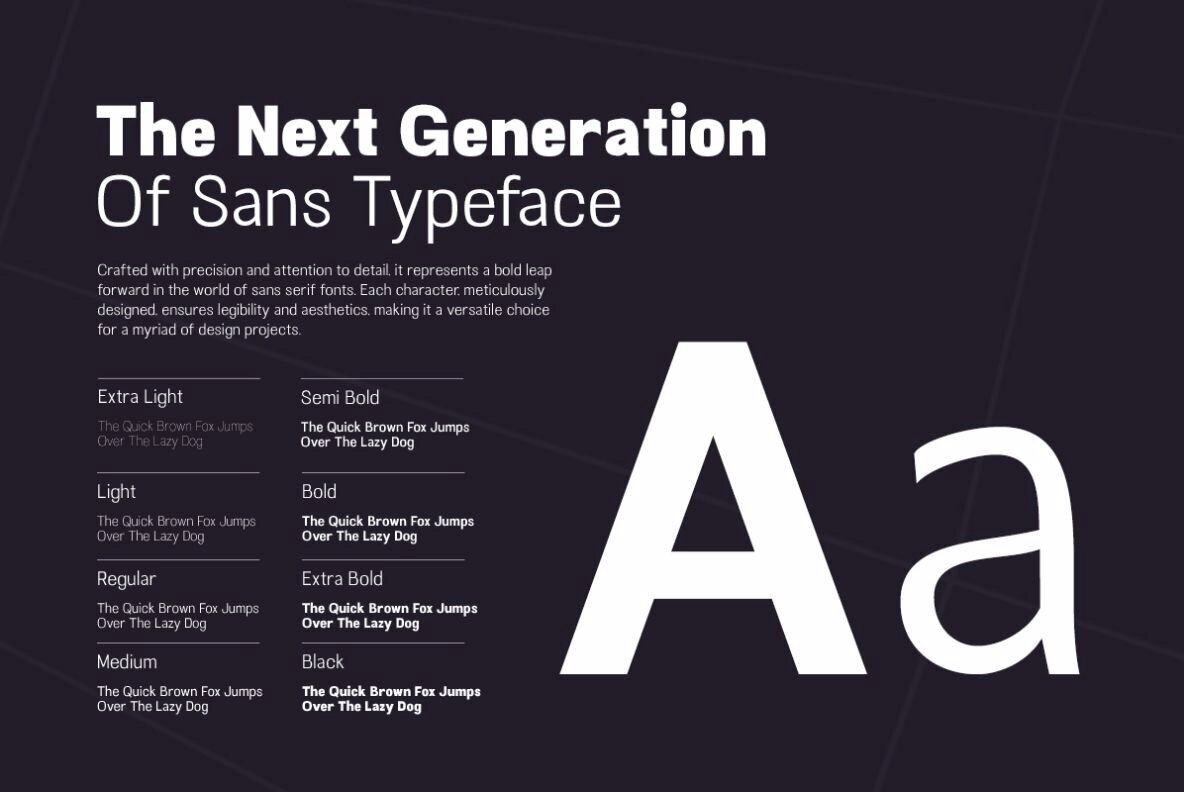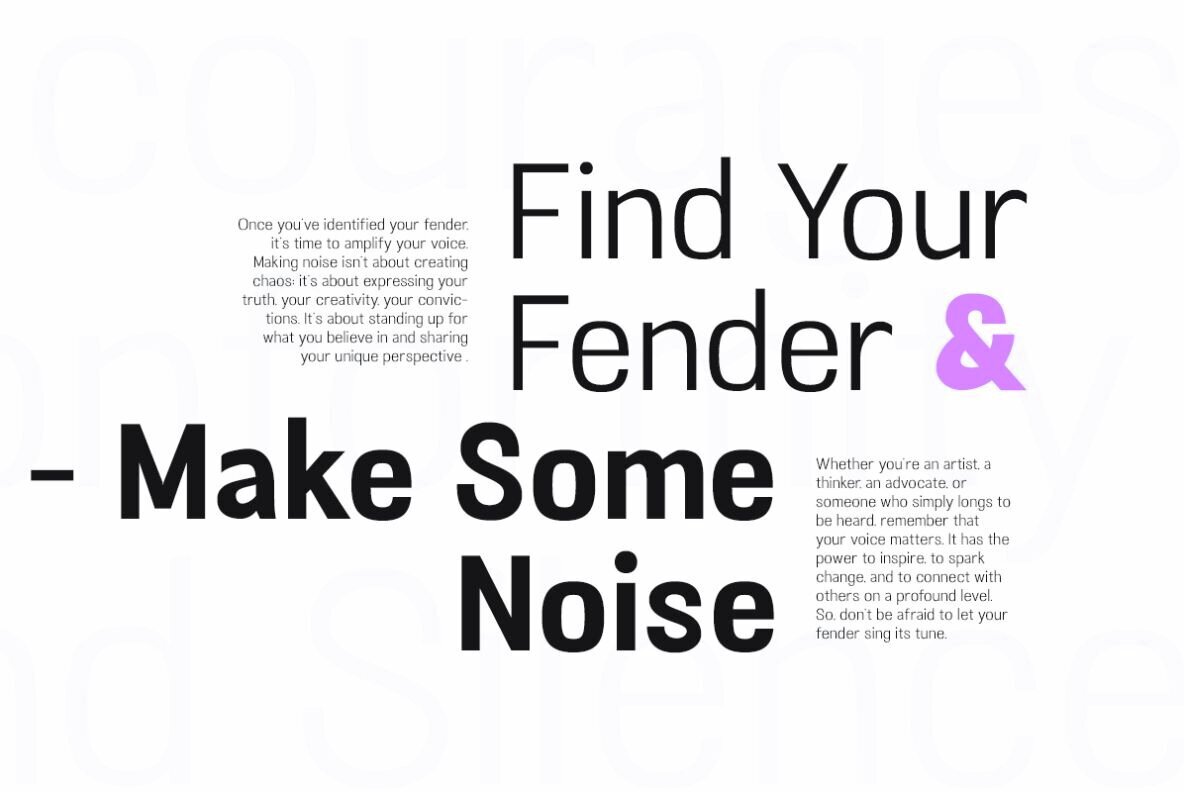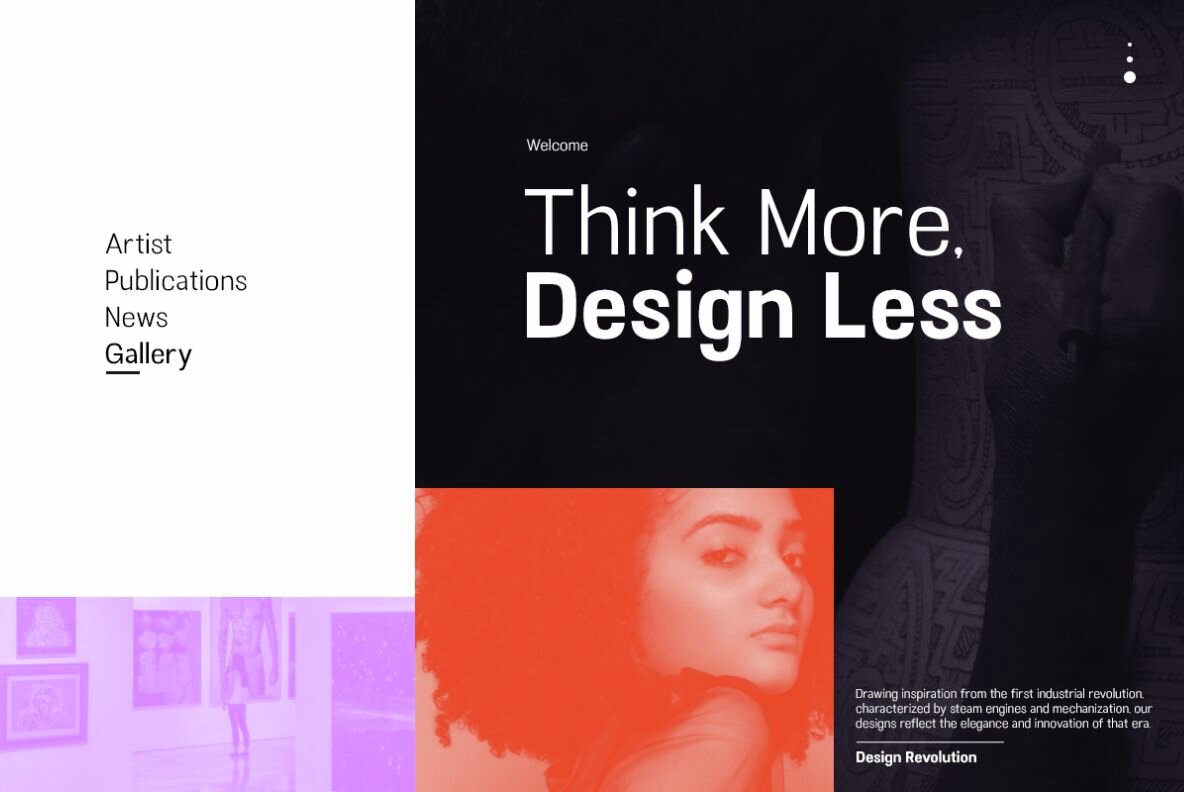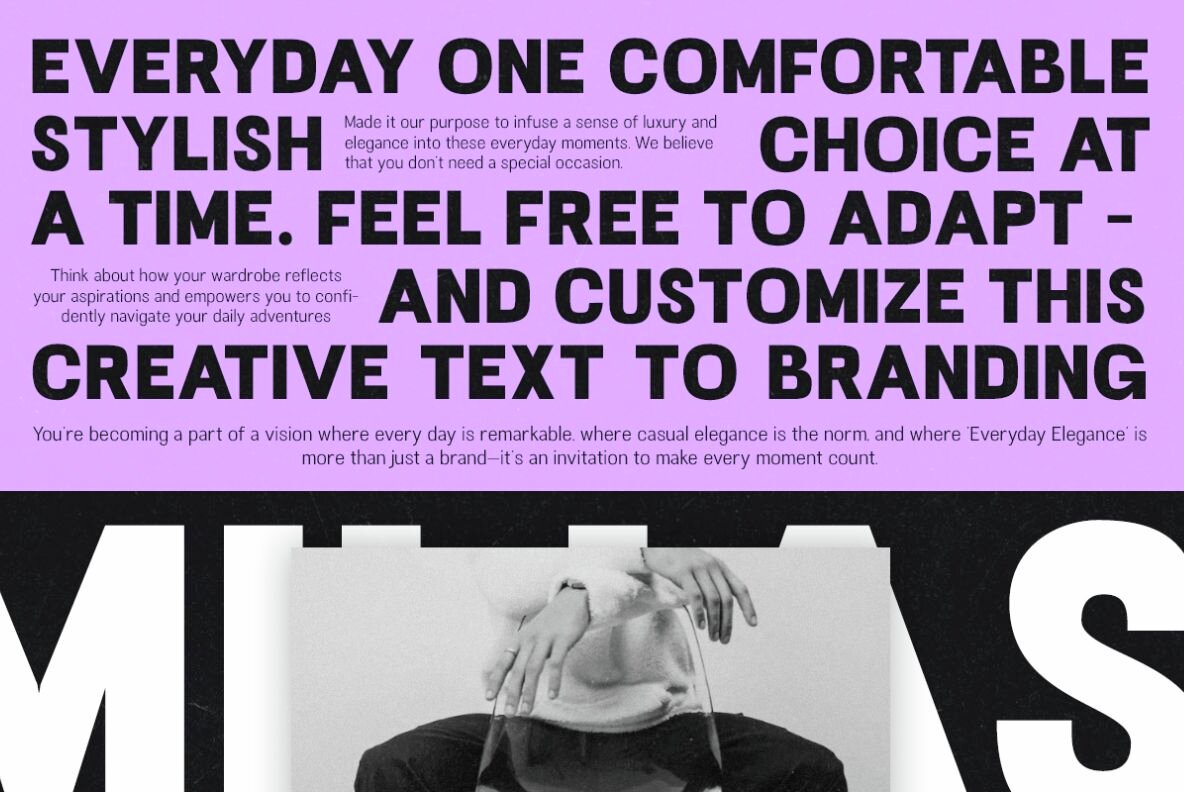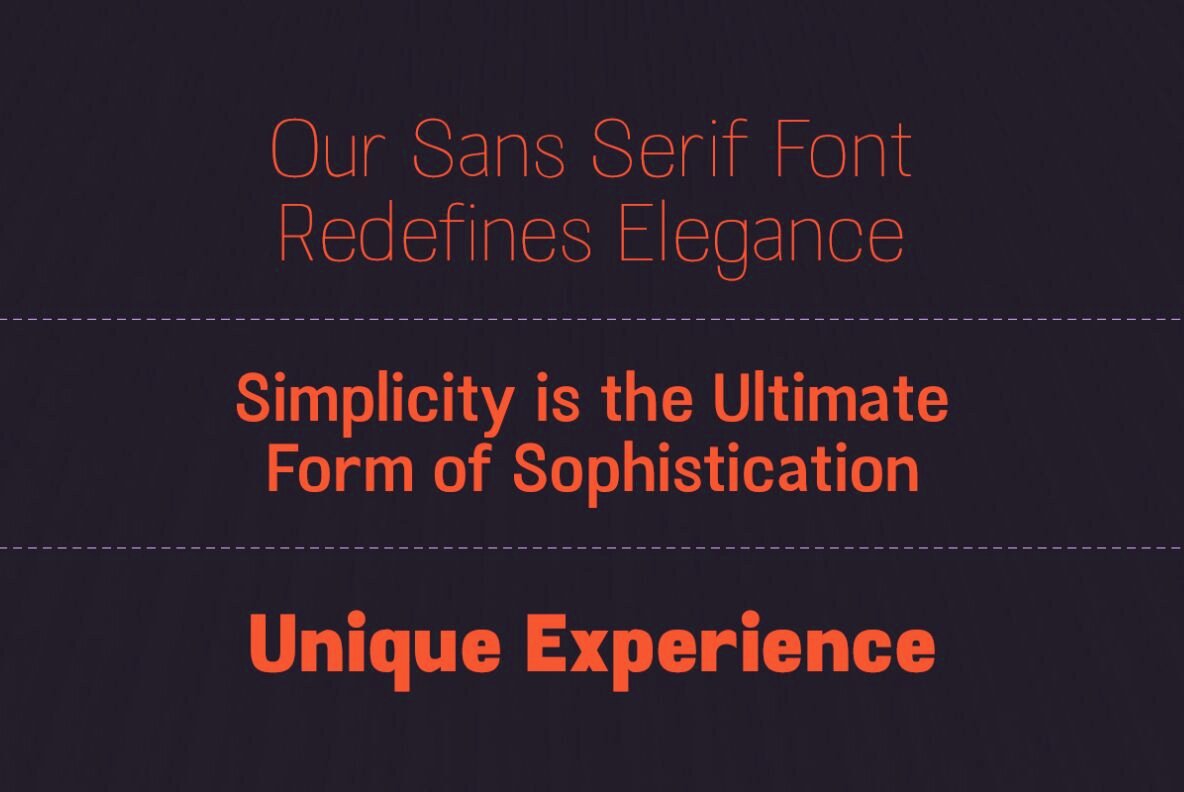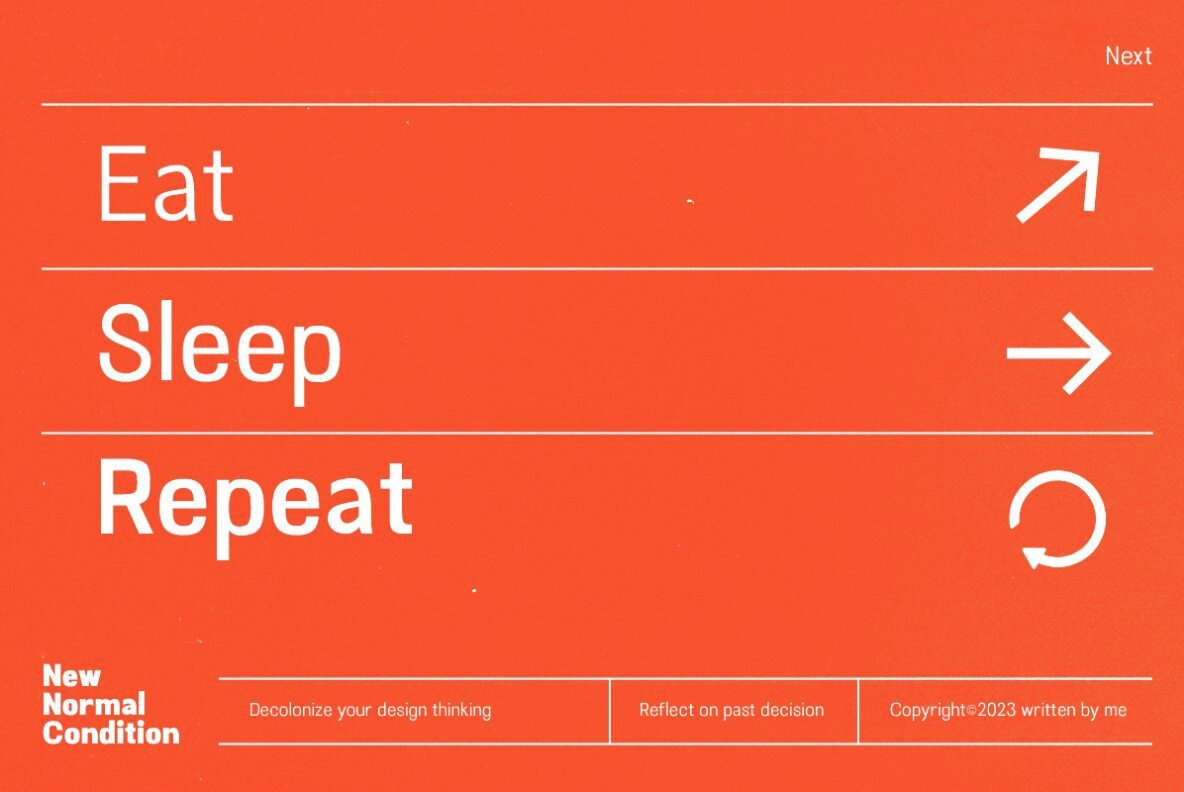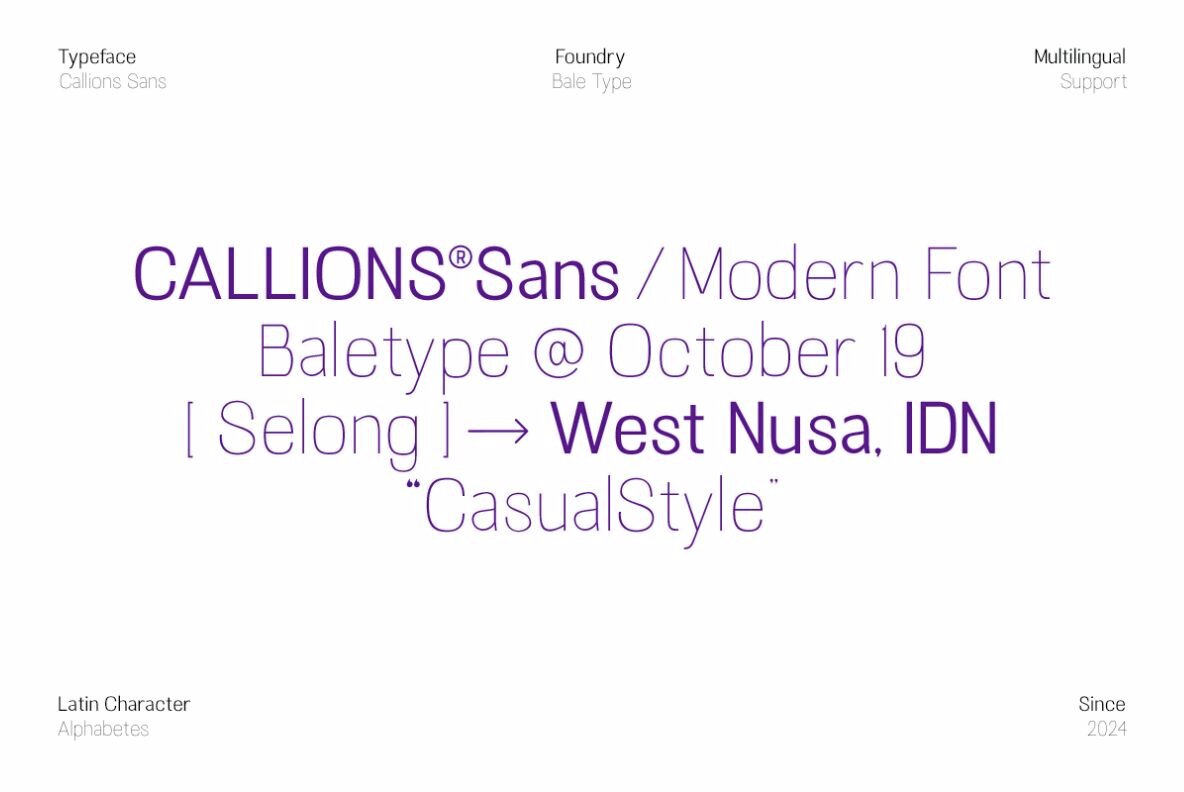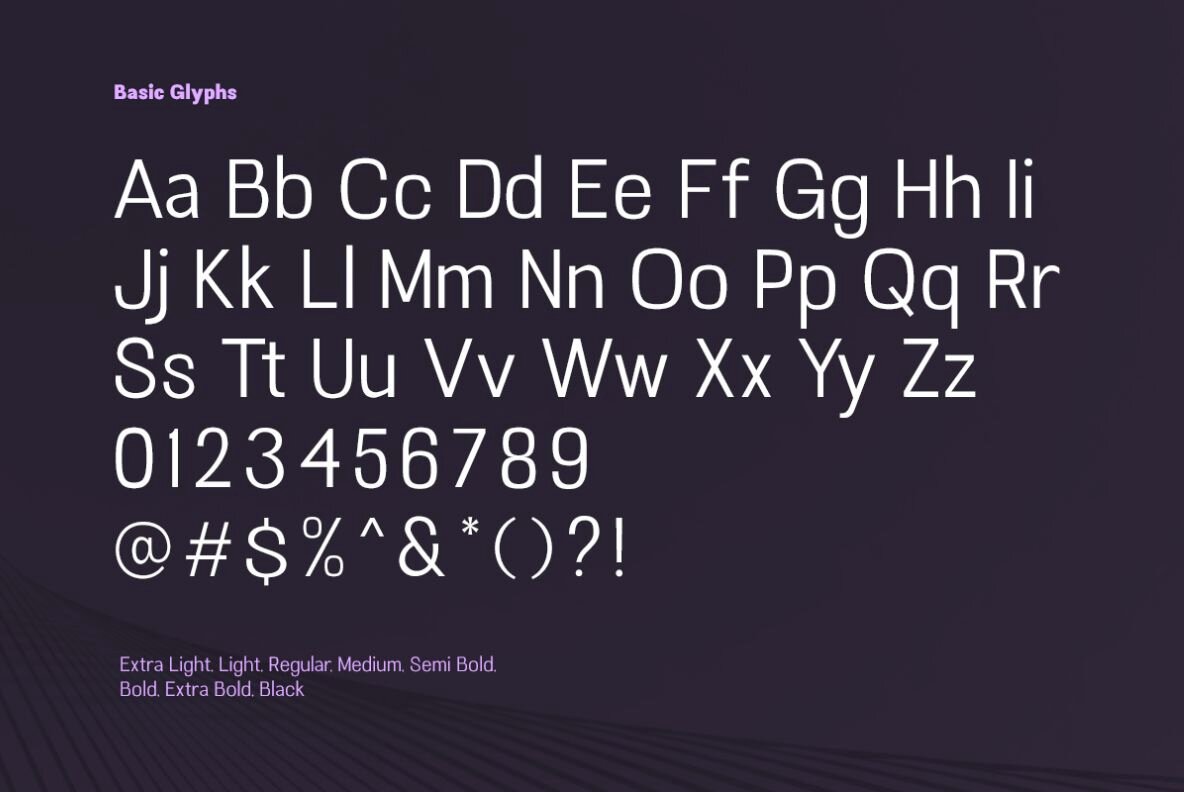
Callions Font
Introducing Callions, basic sans serif family with contemporary look designed to offer a minimalist, versatile, and modern typeface that suitable for any purposes. With 8 weight style, from Extra Light to Black, that you can choose to use for any project such as sign, quote, branding, etc. This font family also support multi language!